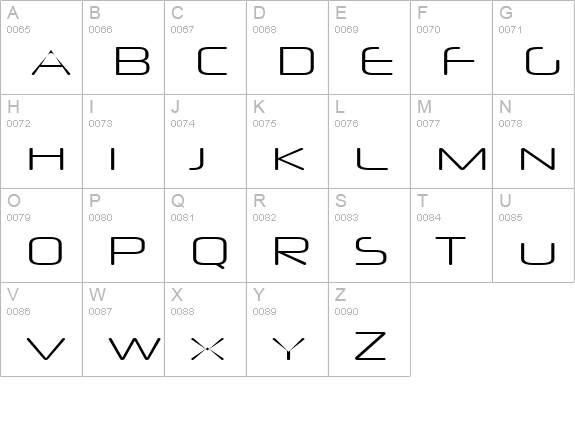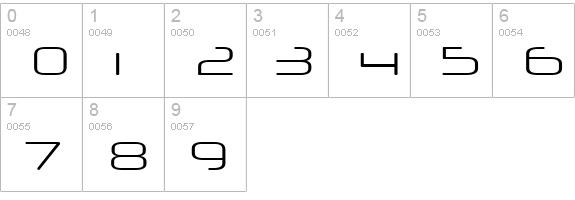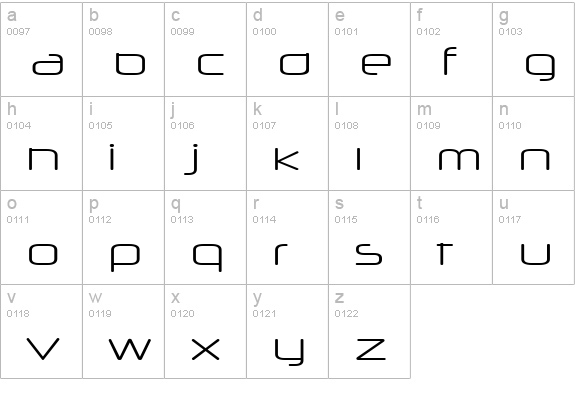
Neuropol X Lite is a modern and sleek font that exudes a futuristic and high-tech vibe. With its clean lines and geometric shapes, this font is perfect for projects that require a contemporary and cutting-edge look. The Lite version offers a more subtle and streamlined variation of the original Neuropol X font, making it versatile for various design applications. One of the best things about Neuropol X Lite is that it is free to download at FontsMarket.com. This means that you can easily access this stylish font without any cost, making it a great option for designers on a budget or anyone looking to add a touch of modernity to their projects. Whether you're working on a website, logo, or print design, Neuropol X Lite is sure to make a bold statement and elevate your work to the next level. Download it today and see the difference it can make in your designs!